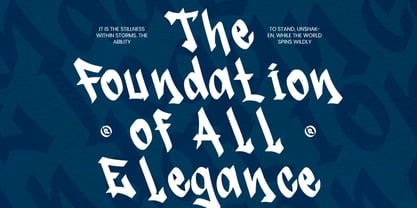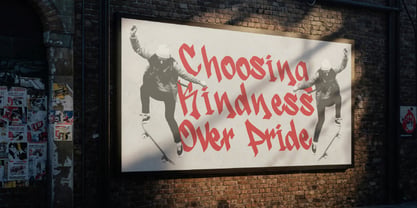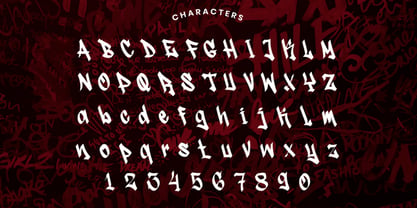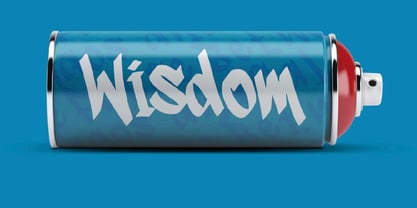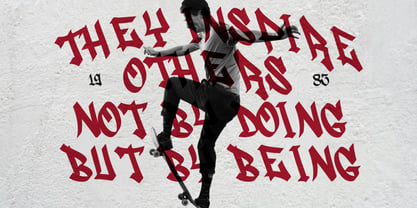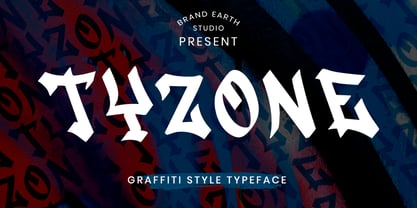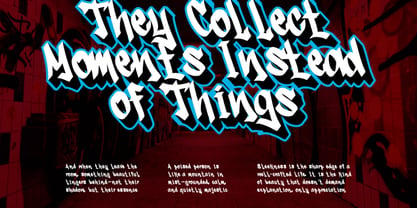
Tyzone
by Brandearth
The Tyzone Font Family was designed by Moch Rasjid Wiyono and published by Brandearth. Tyzone contains 1 styles. More about this family
Tyzone is a bold graffiti style typeface inspired by urban street art, skate culture, and expressive hand-drawn lettering. Featuring sharp angles, dynamic strokes, and rebellious character shapes, this font captures the raw energy of city walls and underground creativity. The typeface includes uppercase, lowercase, numerals, and punctuation, making it versatile for impactful display use. Tyzone is highly relevant for streetwear brands, skate shops, hip hop merchandise, music covers, urban event posters, gaming graphics, YouTube thumbnails, graffiti-inspired branding, and bold marketing campaigns. Its expressive character makes it ideal for projects that aim to communicate attitude, movement, youth culture, and underground identity.